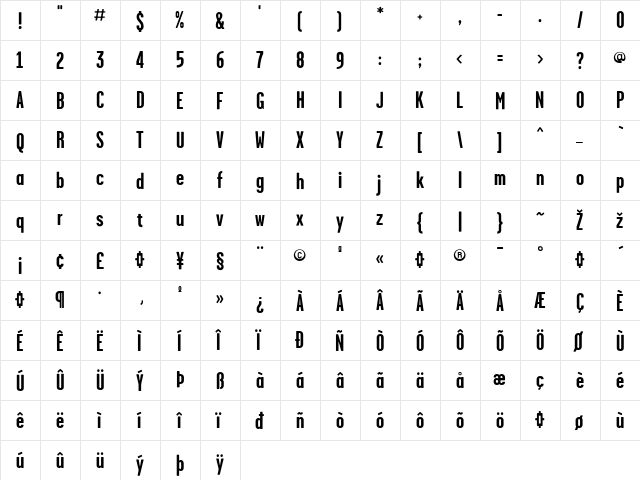
Garage Regular Font Preview
Garage Regular
Garage Regular Font Details
| Foundry | The Font Bureau, Inc |
| Copyright | 1991 The Font Bureau, Inc. Designer, Tobias Frere-Jones. |
Design Context for Garage Typeface
Garage is a composed and adaptable typeface that performs quietly and consistently across a wide range of design contexts.